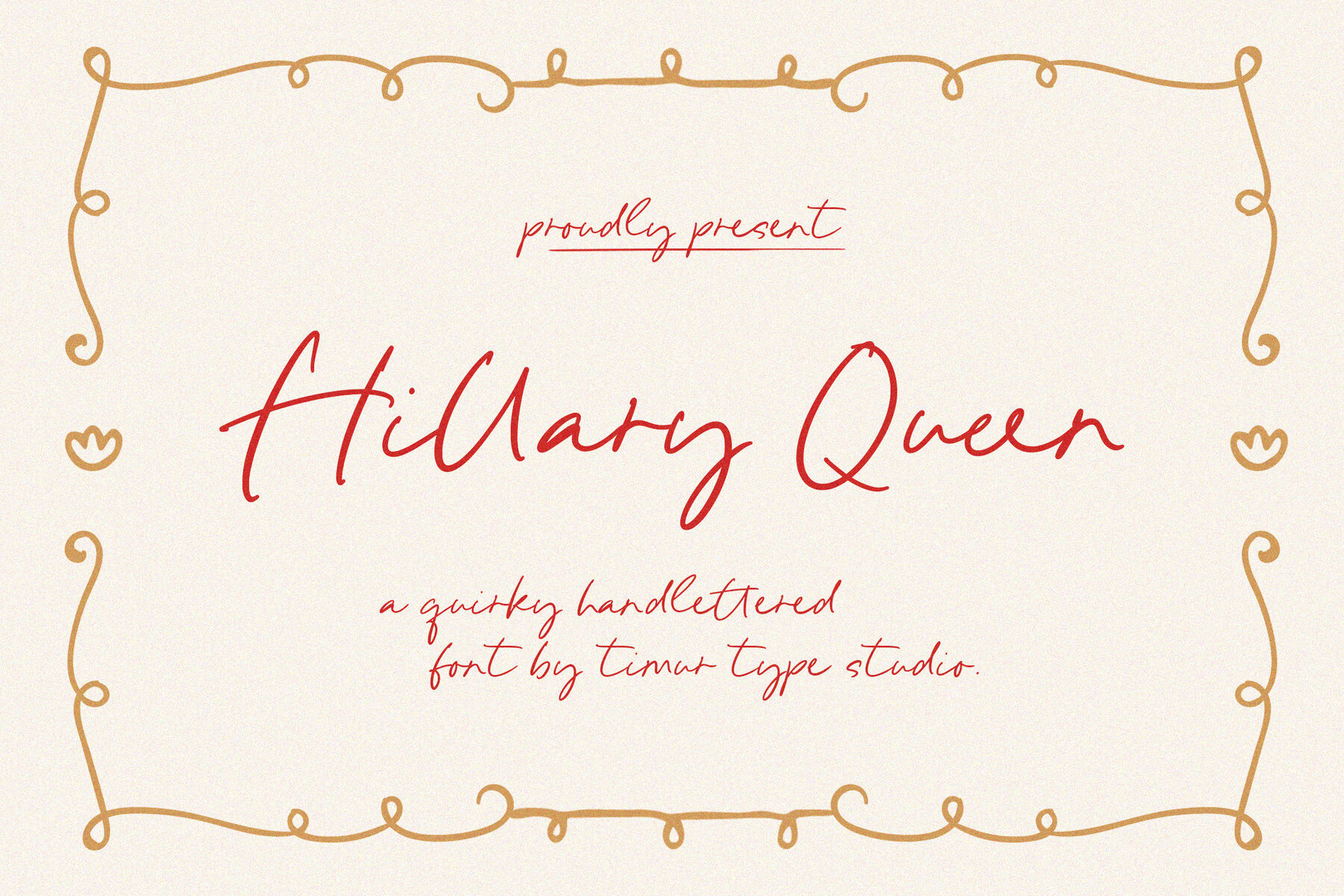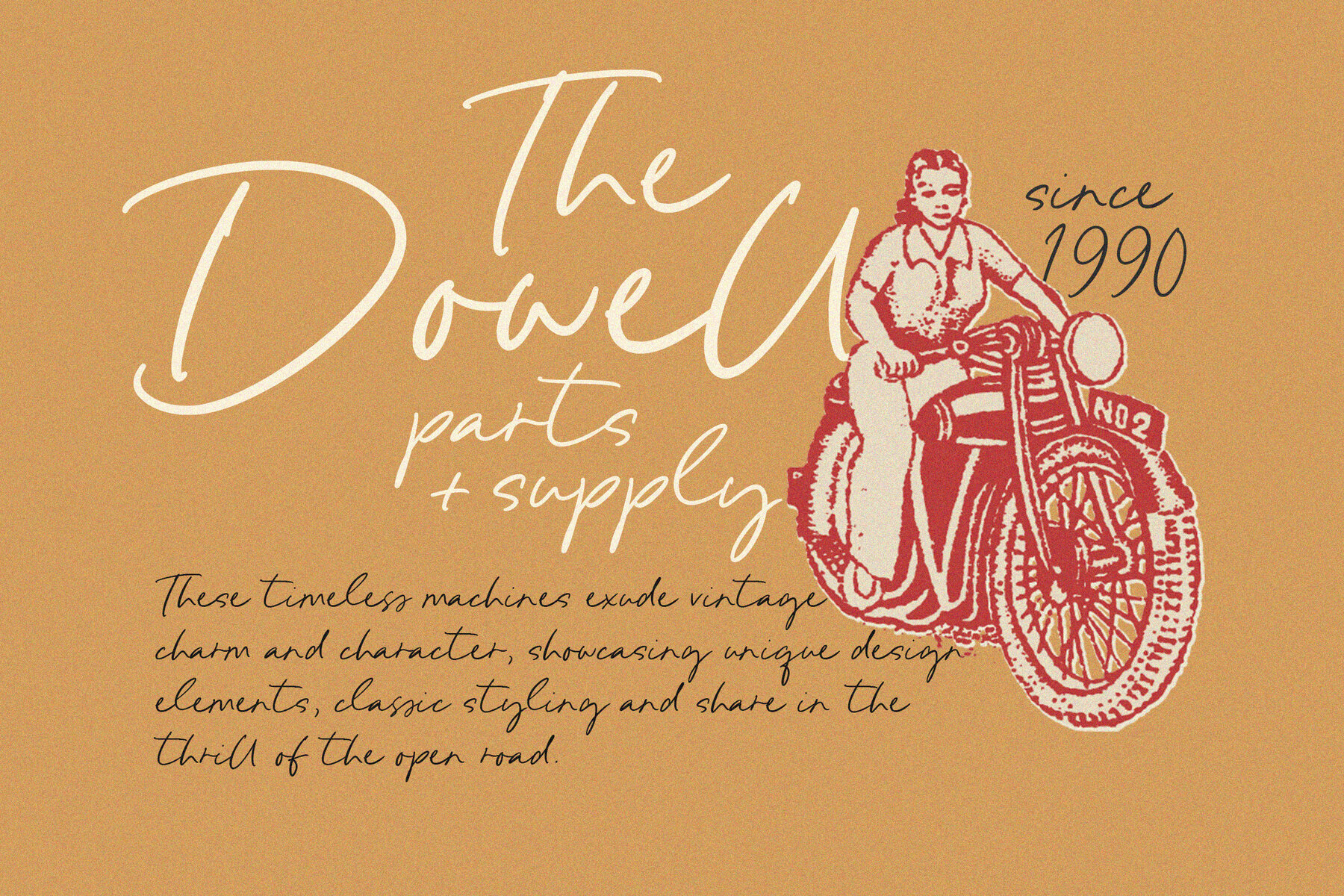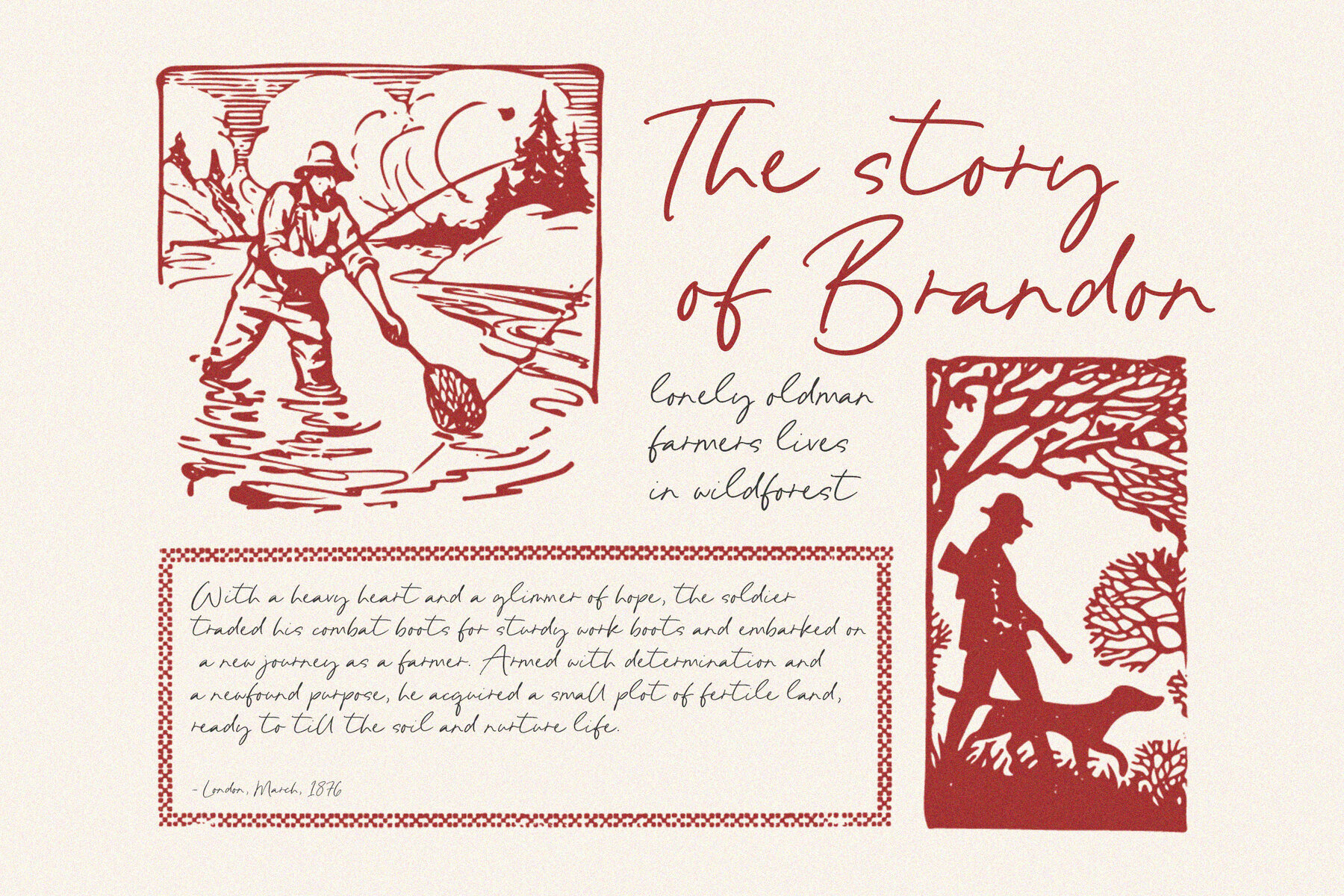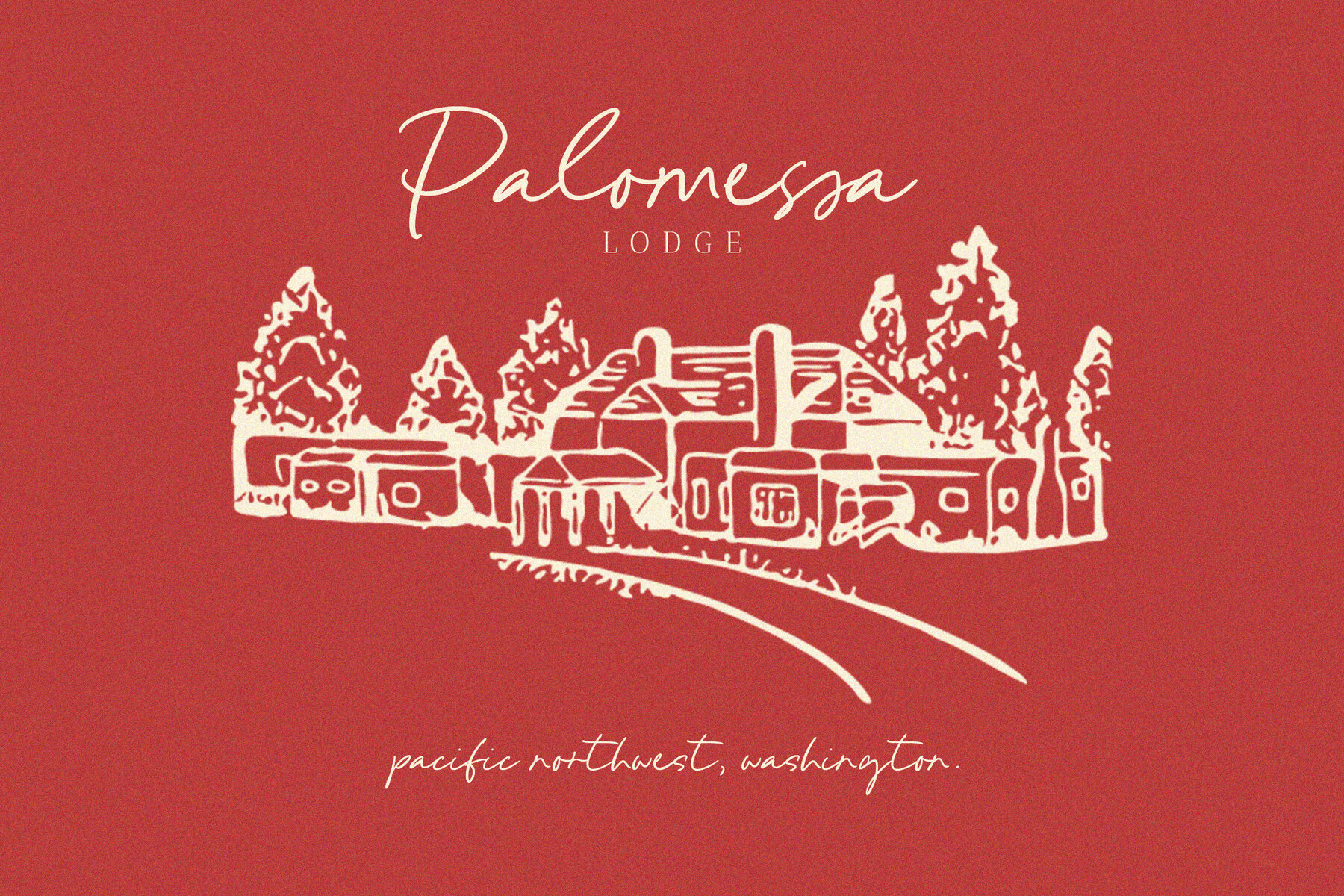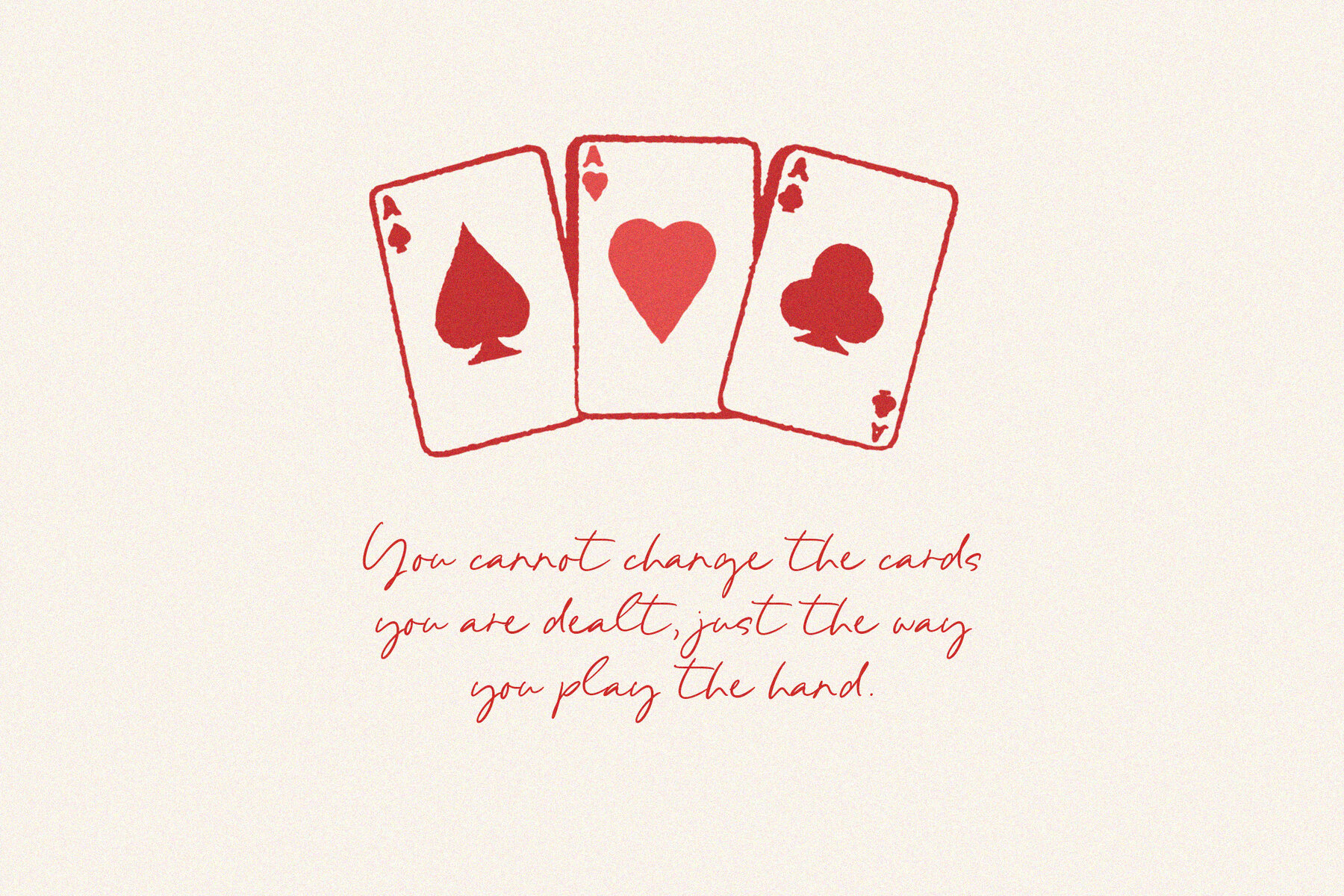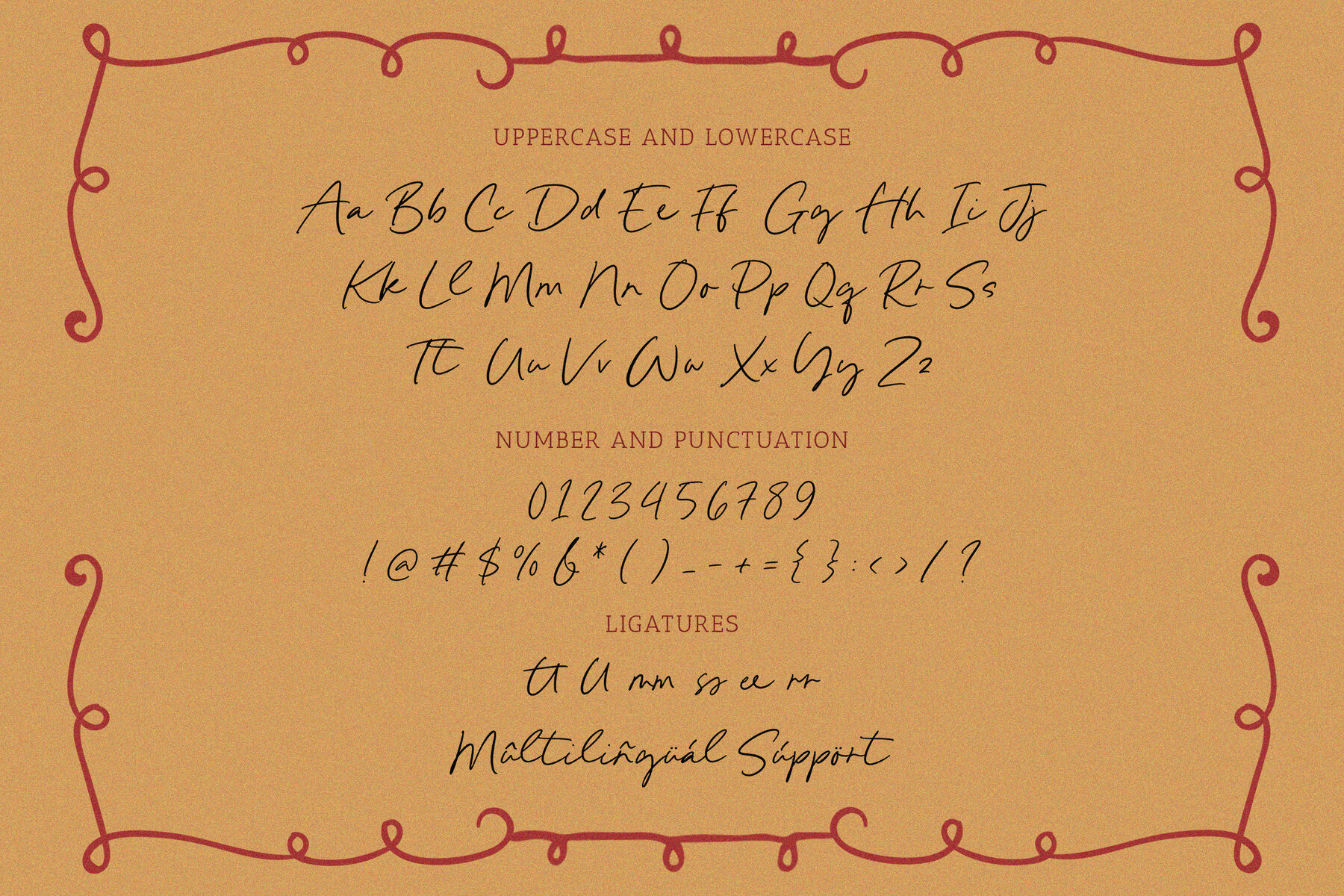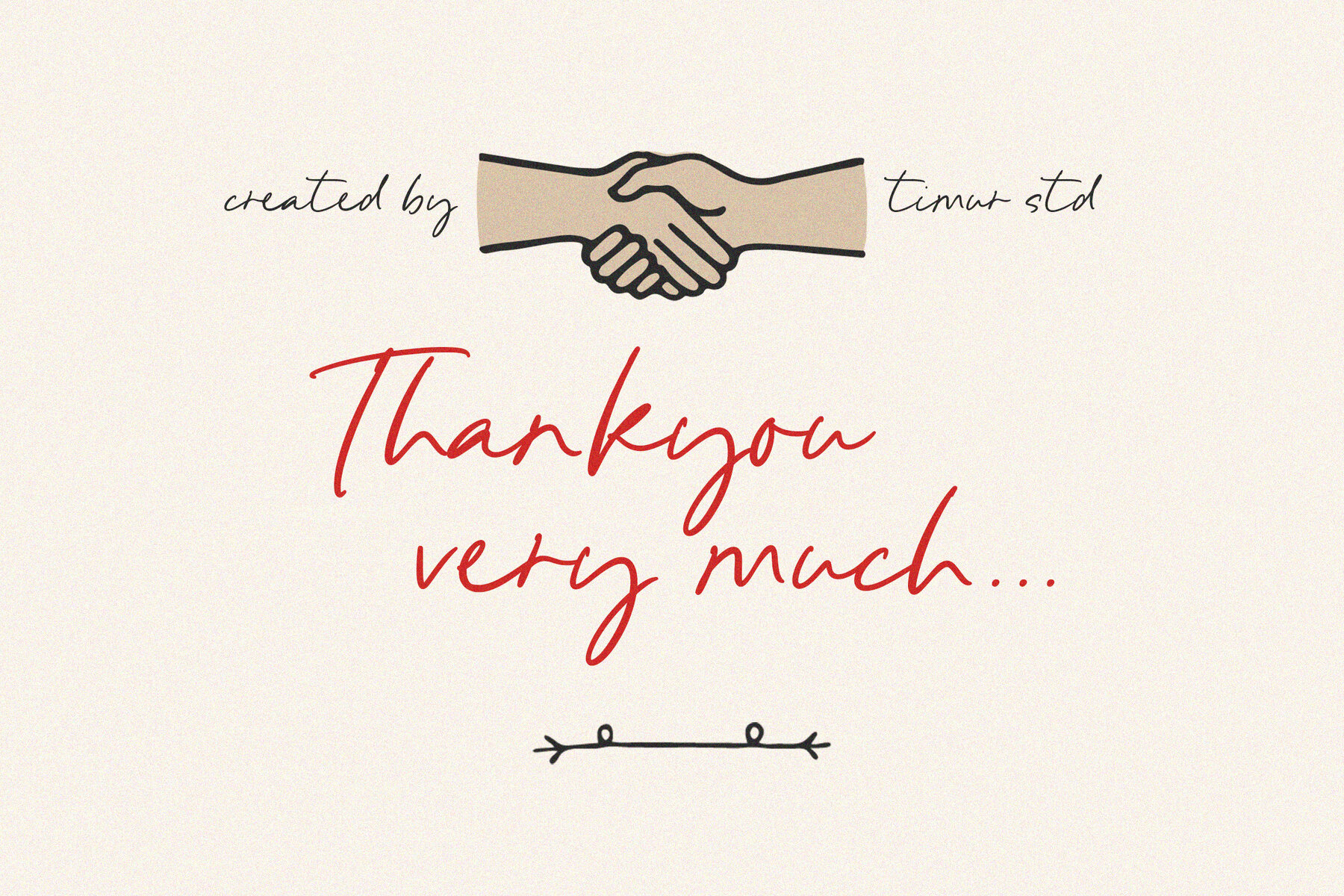
Hillary Queen Font
Hillary Queen
Hillary Queen is a quirky hand-lettered typeface that infuses a whimsical touch into your design projects. Its lively uneven baseline and charming irregularities capture a sense of creativity and fun, making it ideal for projects that require a playful tone. Perfect for use in greeting cards, branding, or social media graphics, this font brings a distinct and lighthearted flair to your work.
Designed to enhance uniqueness, Hillary Queen offers a lively personality that encourages spontaneity in your designs. Its unconventional style adds a creative edge, making each piece stand out with individuality. Whether you're aiming for something fun and engaging or looking to add a touch of uniqueness, Hillary Queen serves as an excellent choice for emphasizing originality and creativity in your projects.